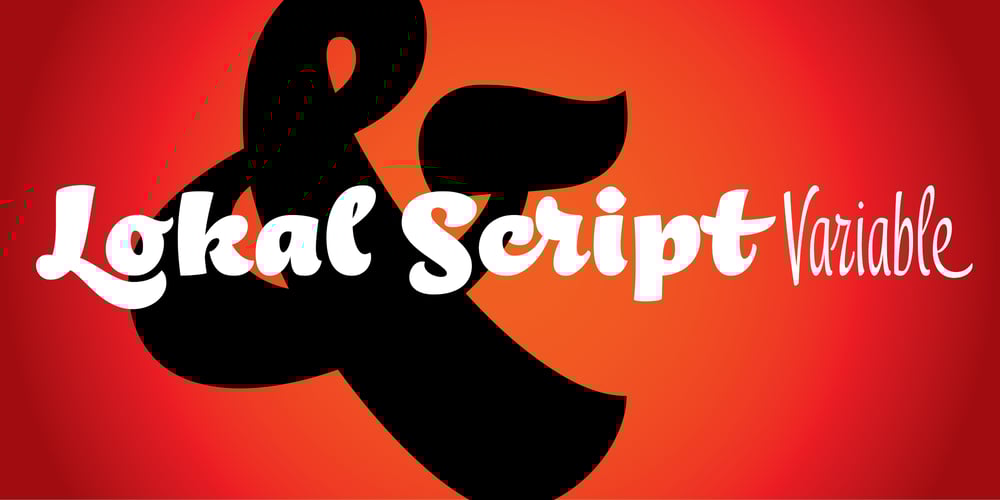
Lokal Script Font Family was designed by František Štorm and published by Storm Type Foundry. Lokal Script contains 18 styles and family package options. Handwritten Typefaces are extraordinarily popular for their chattiness and playfulness. Most of them are inspired by local inscriptions and signs. They can imprint a human touch to any cultural, social, product and communication design. So is Lokal Script.